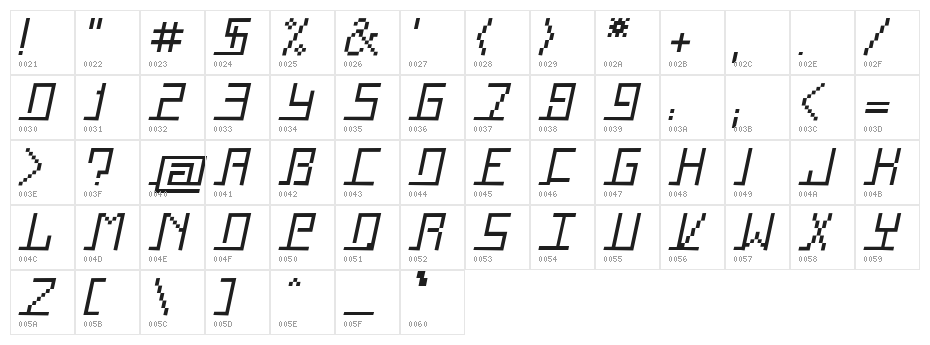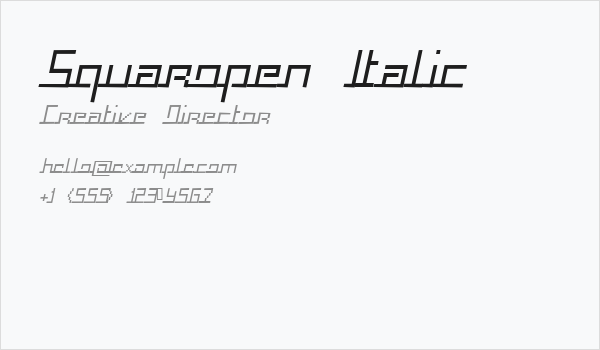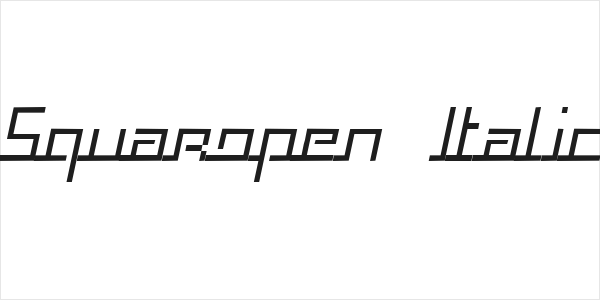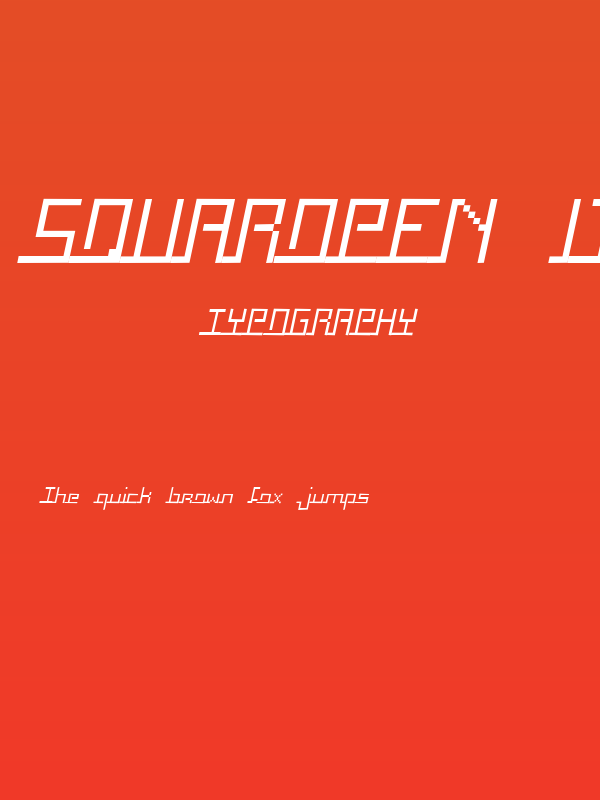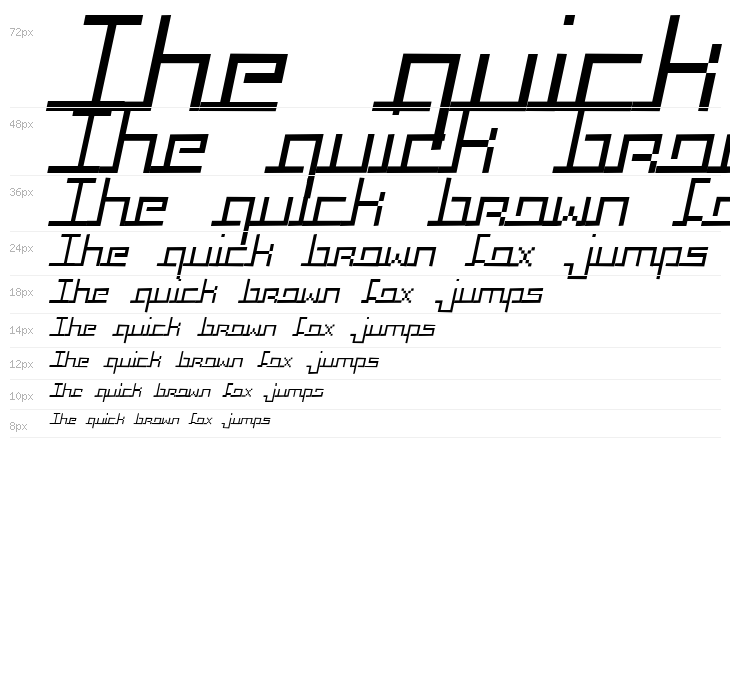
Squaropen Italic Font
Squaropen Italic Description
This font features a unique, geometric design with a pixelated, grid-like structure. Each character is composed of straight lines and sharp angles, giving it a distinctly digital and modern appearance. The italic slant adds a dynamic feel, while the uniform stroke width maintains a consistent look across all characters. The uppercase and lowercase letters, along with numbers and special characters, are all designed with the same pixelated style, making it ideal for projects that require a futuristic or tech-inspired aesthetic. The font's clean lines and structured form make it highly legible, even at smaller sizes.
| Proposed Projects | Ideal for digital art, tech-themed designs, video game interfaces, and modern branding projects. |